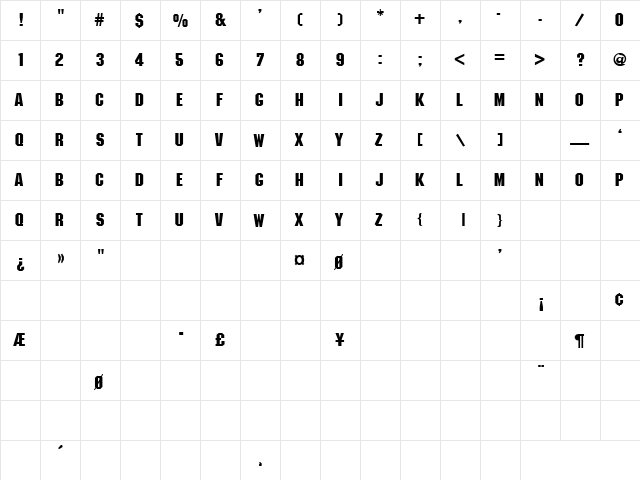
Weapon 7 Regular
Design Context for Weapon 7 Typeface
Weapon 7 takes a measured approach to typography — its balanced proportions and neutral character make it a reliable workhorse for both digital and print work.